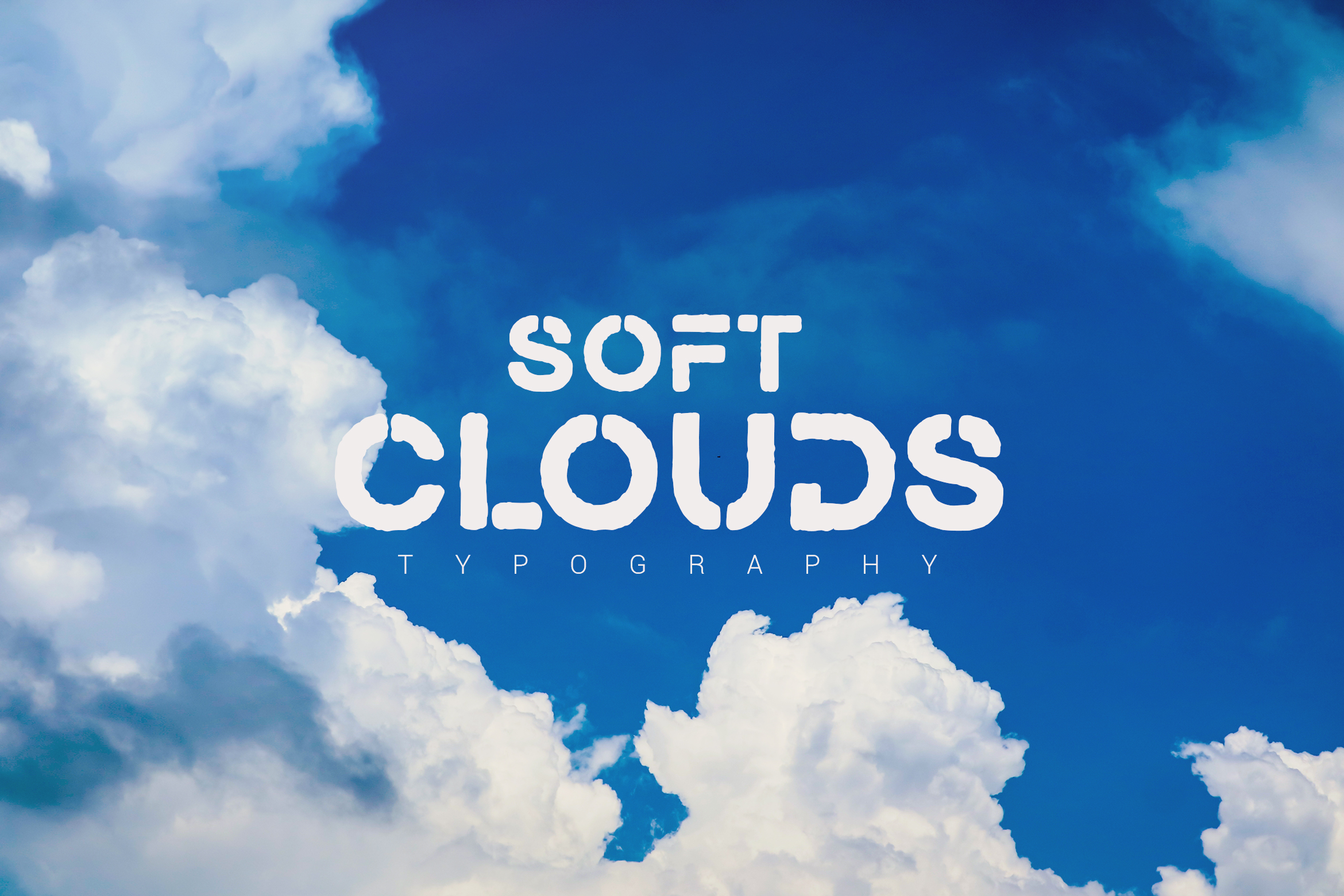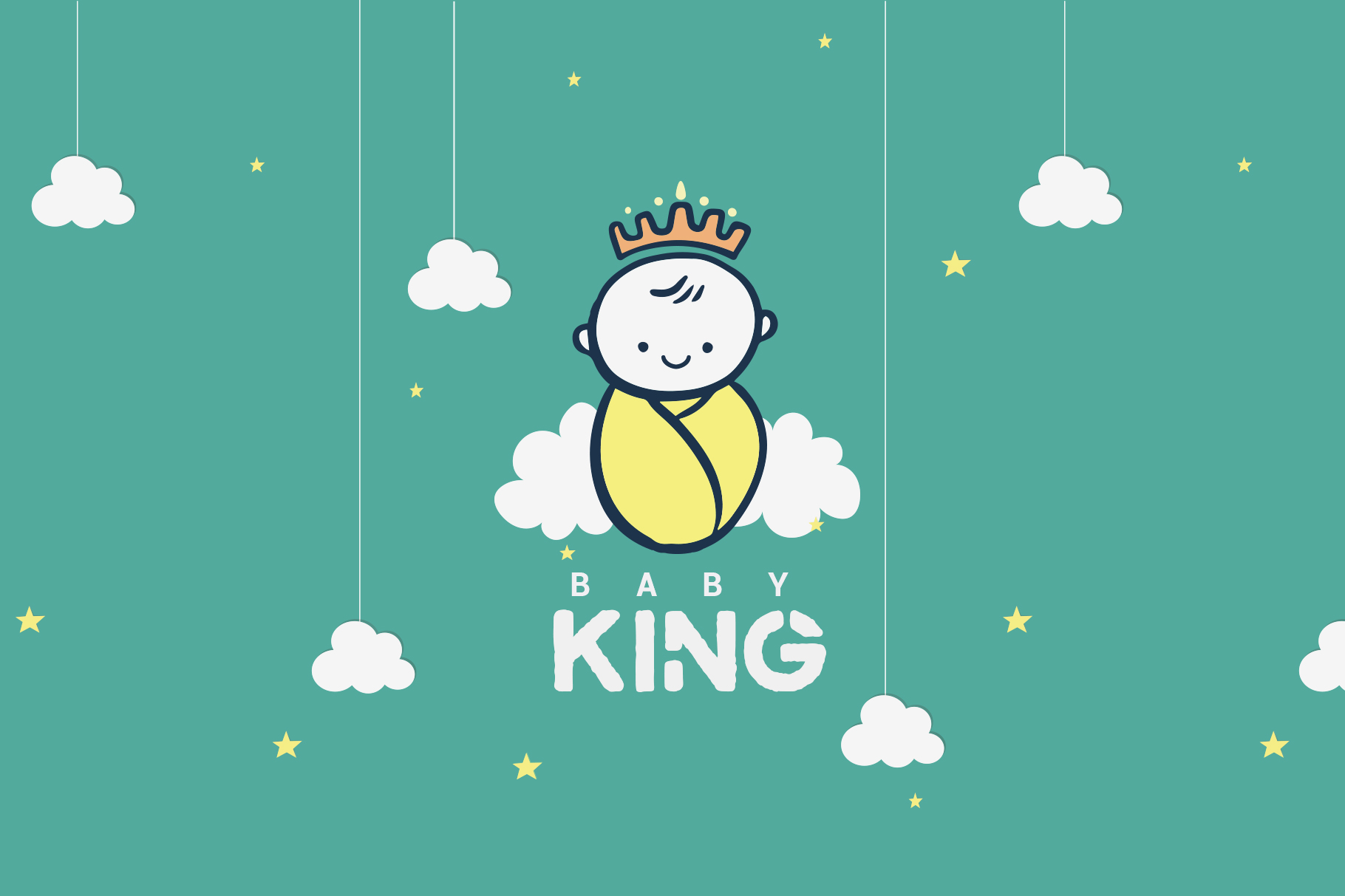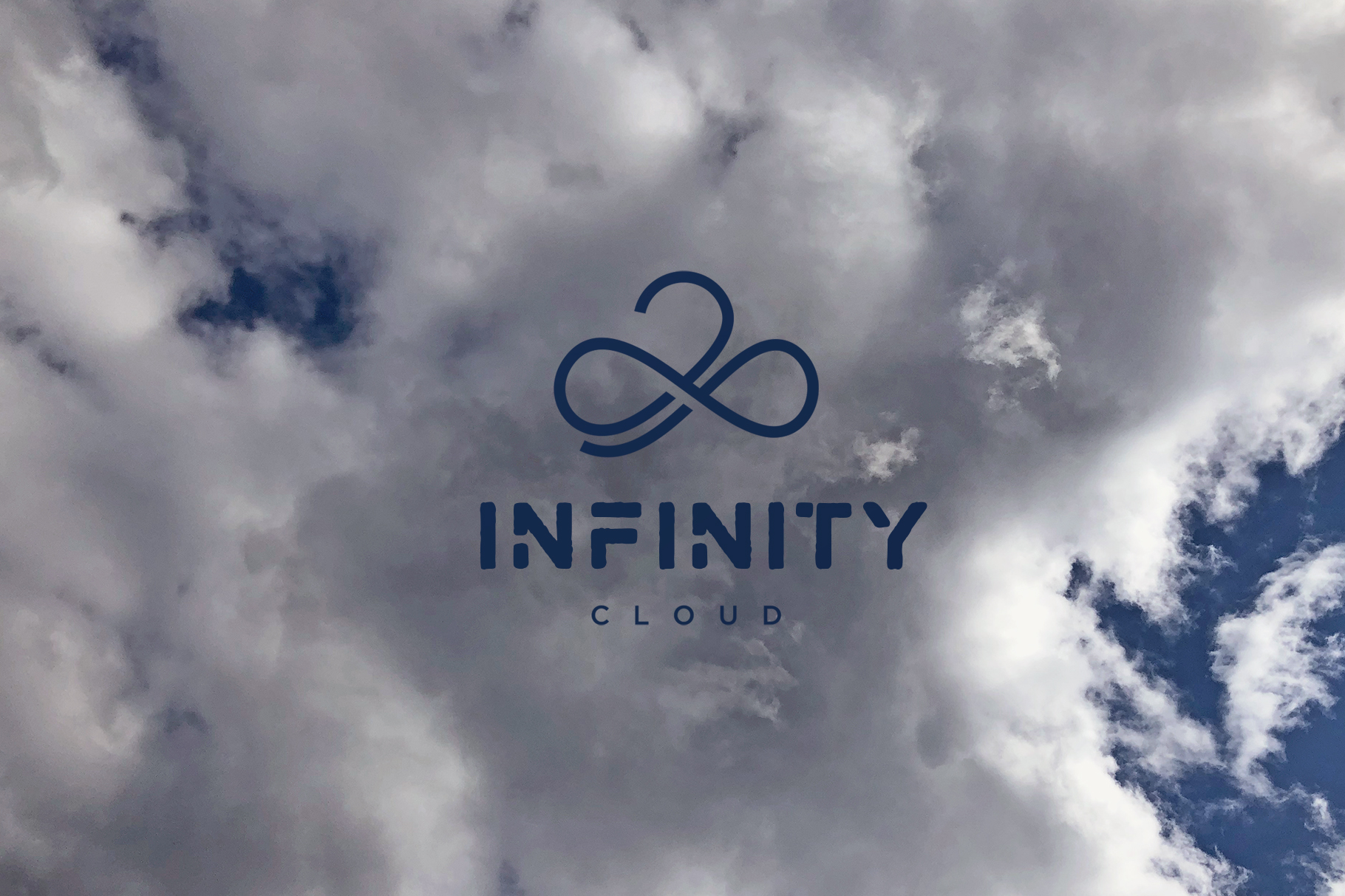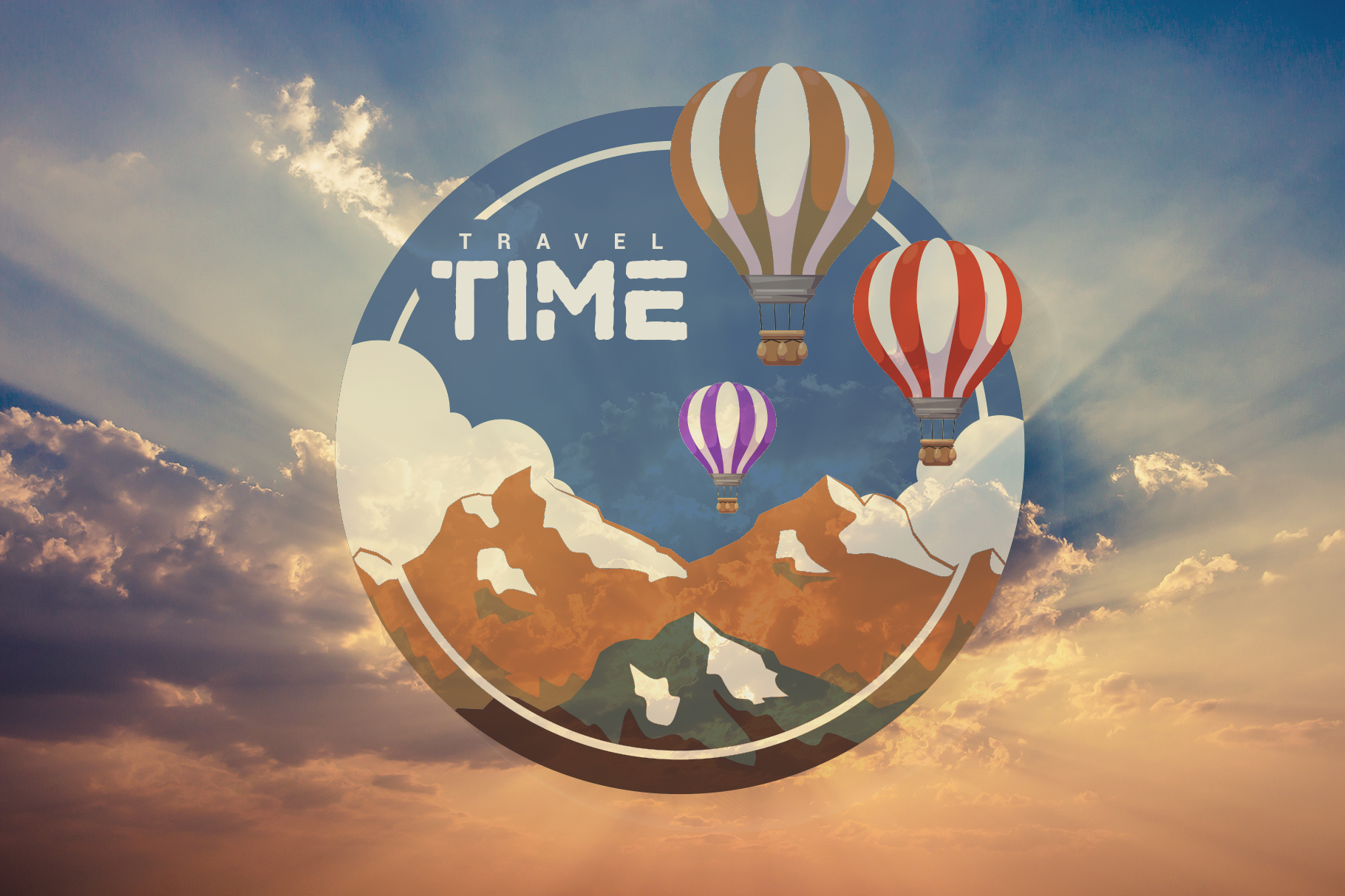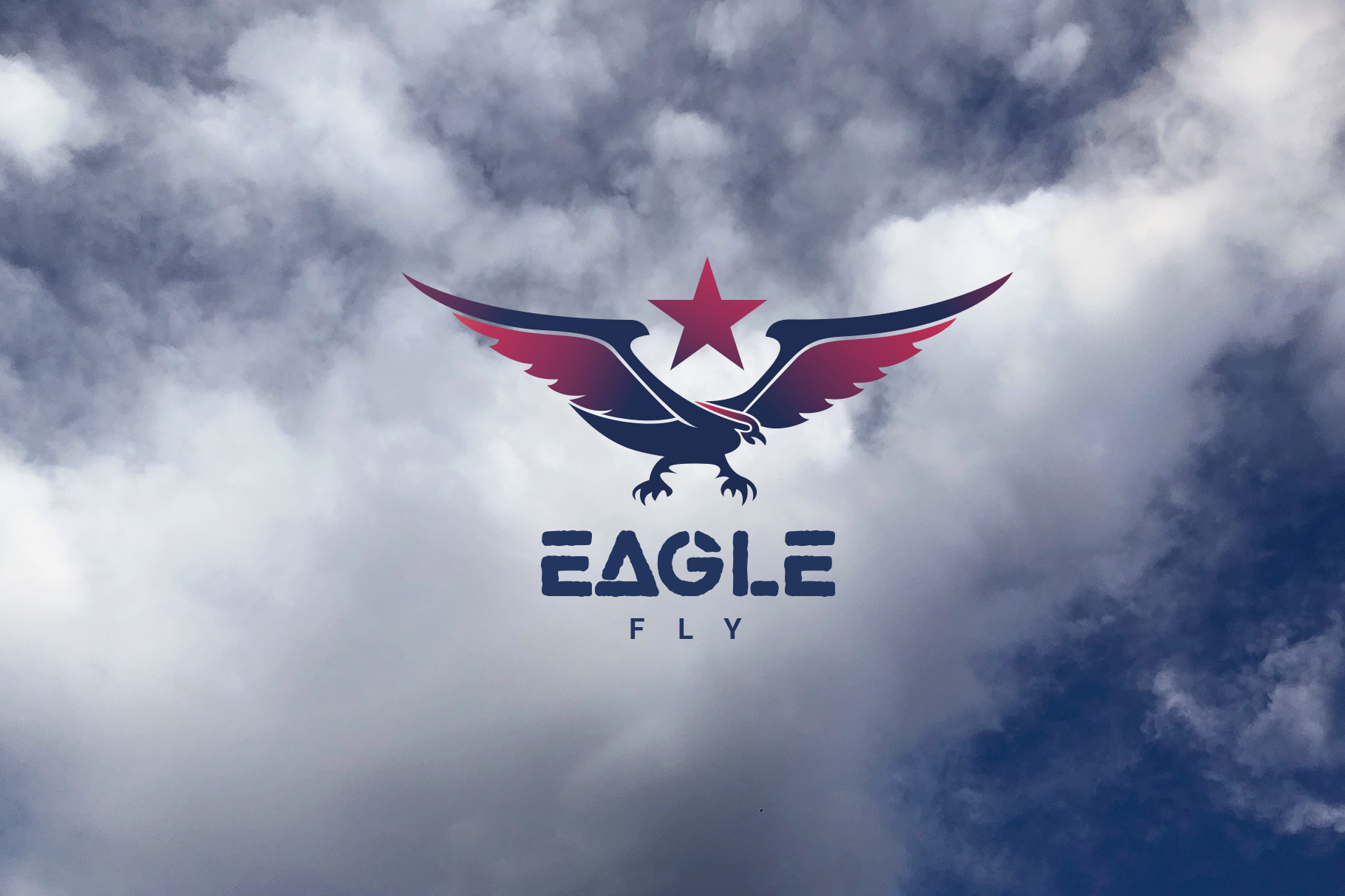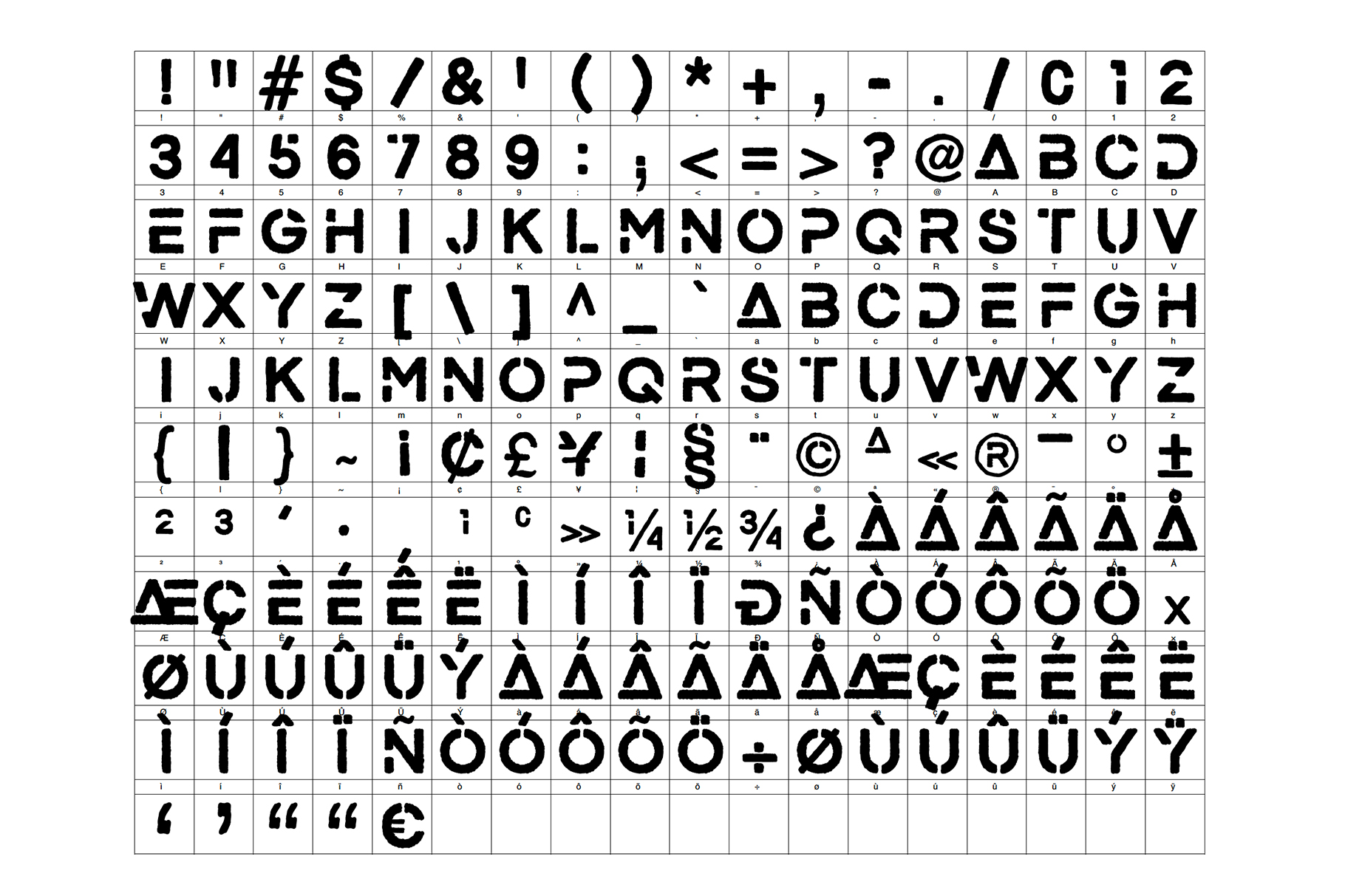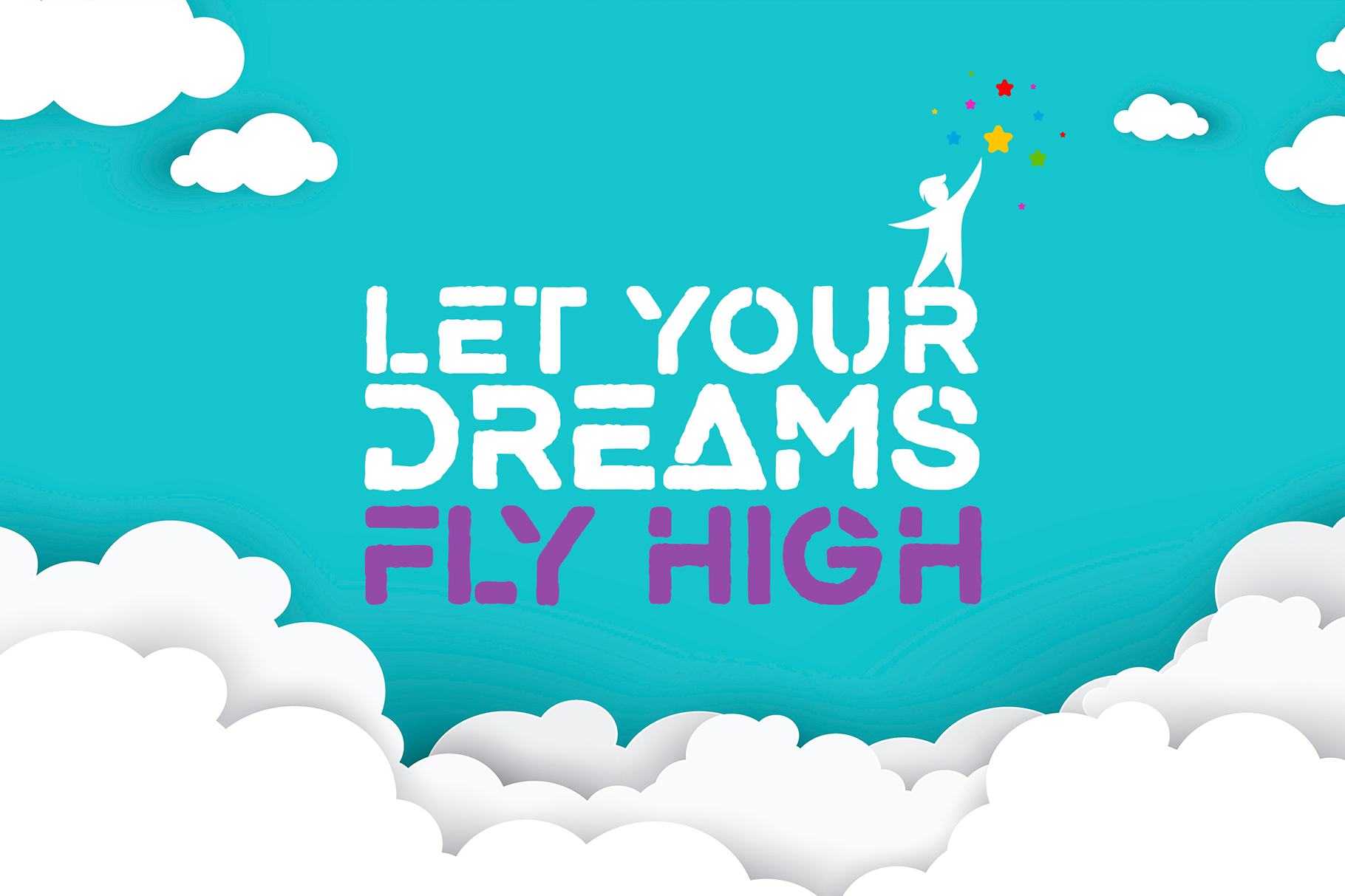
There are 3 matching fonts that work together great and will allow you to offer tremendous variation in your designs. The letters are very easy to read which makes this font suitable for both digital and print.
All letters. All numbers. All punctuations. All extensions. All symbols.
Languages: Albanian, Basque, Catalan, French, Italian, Polish, Breton, Chamorro, Danish, Dutch, English, Finnish, Frisian, Galician, German, Malagasy, Norwegian, Portuguese, Spanish, Swedish
Soft Clouds